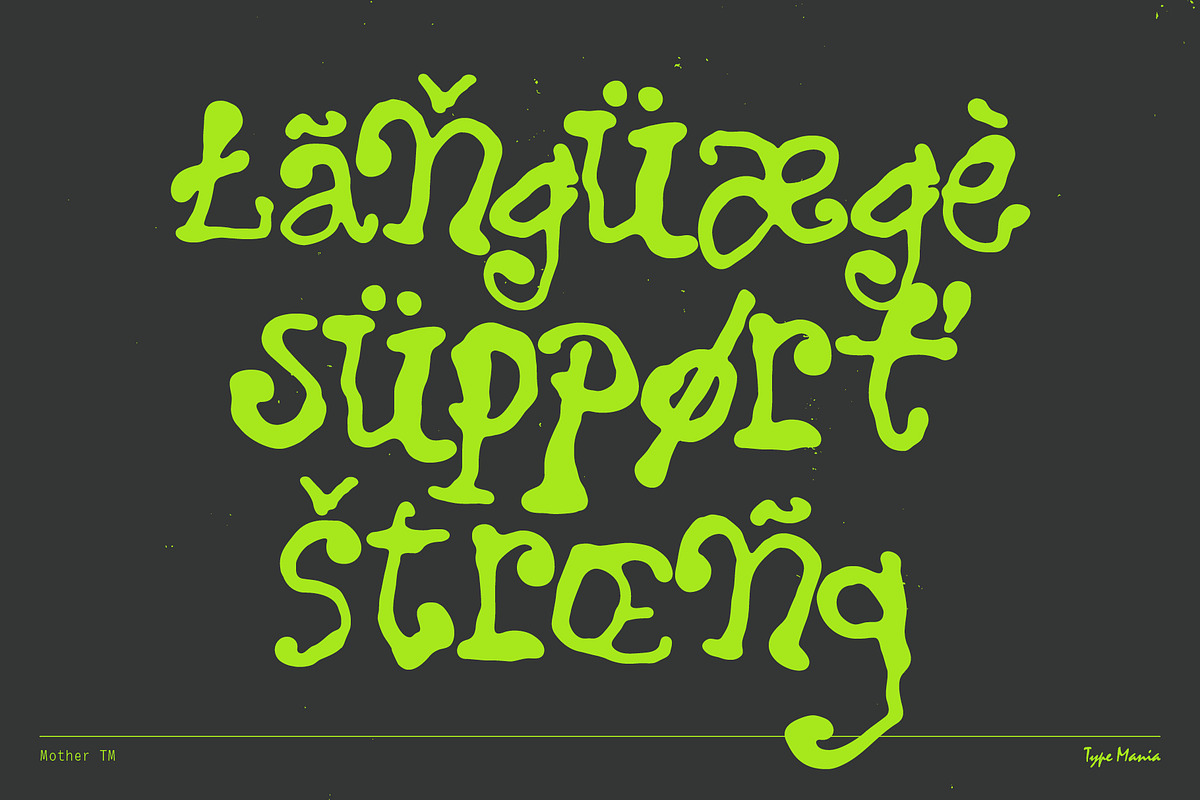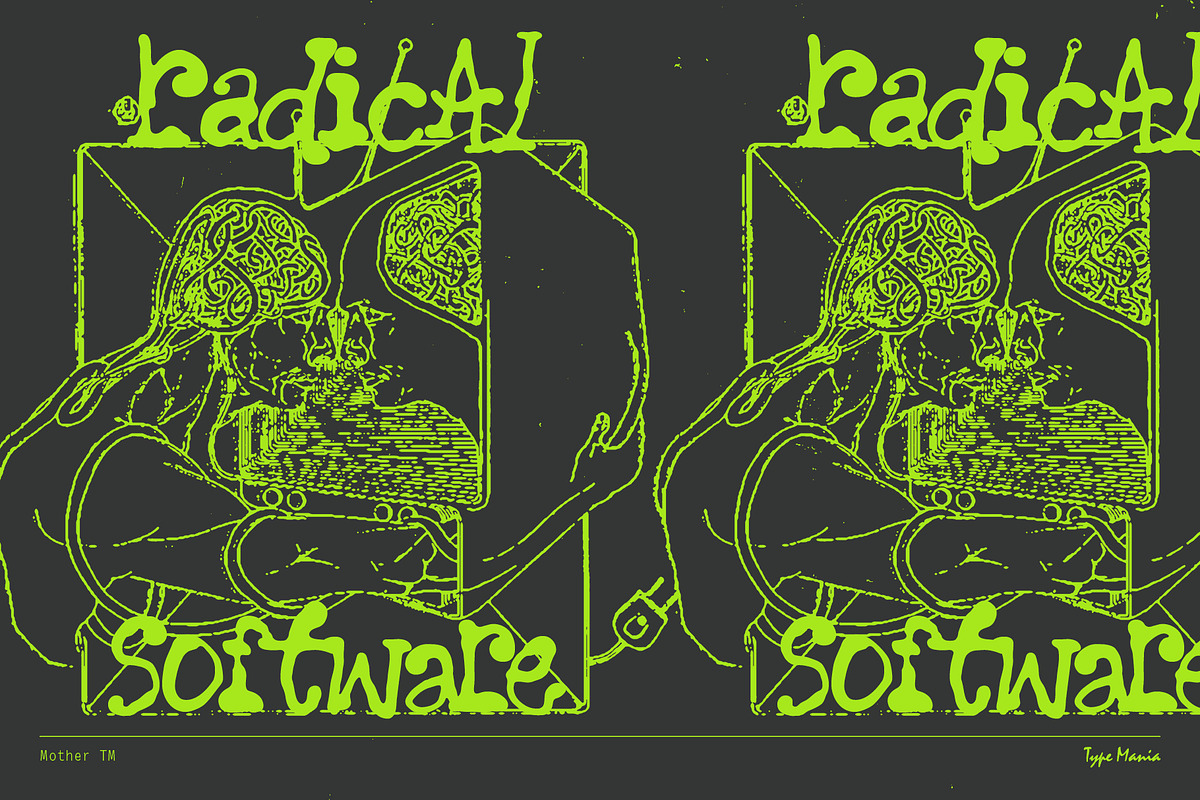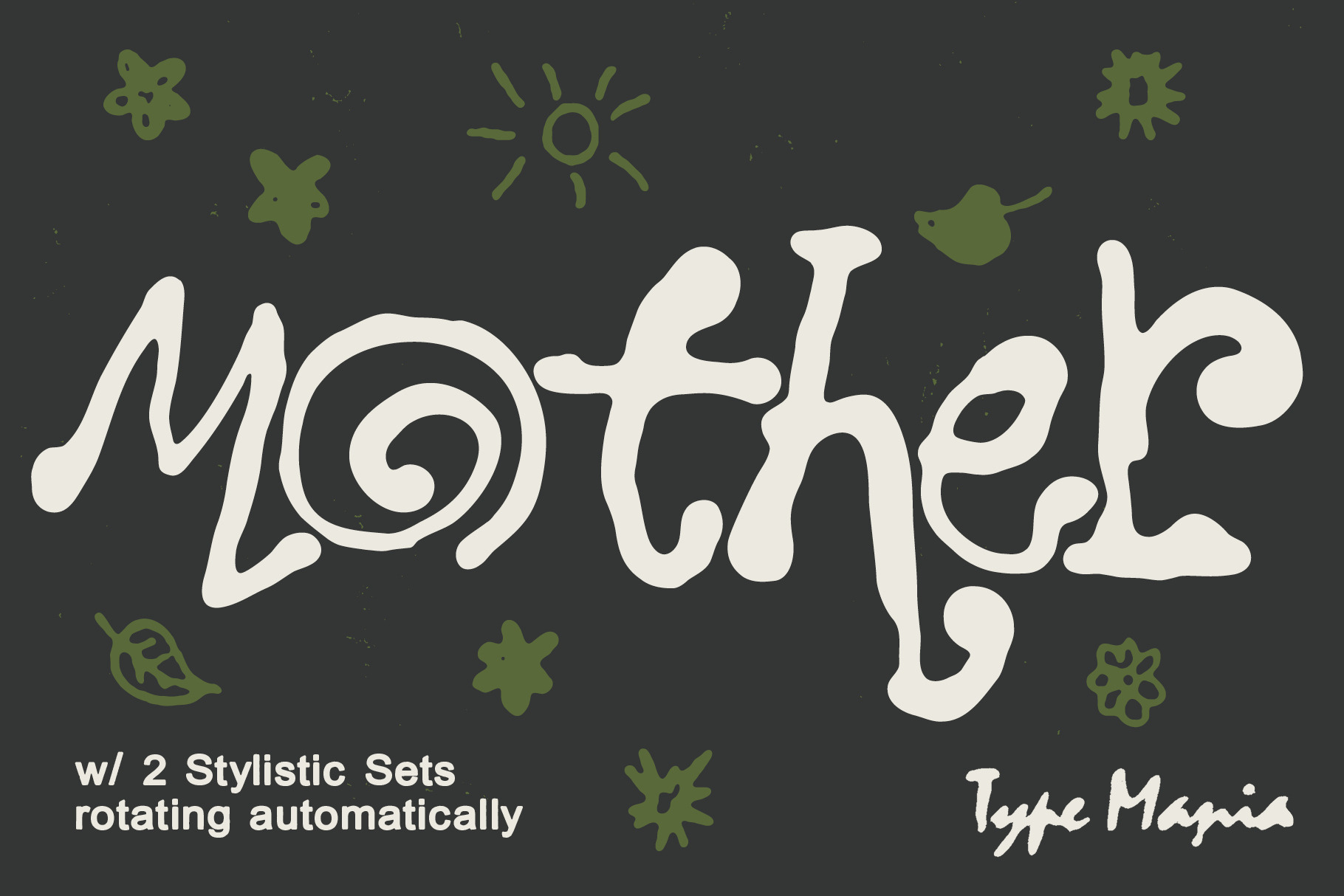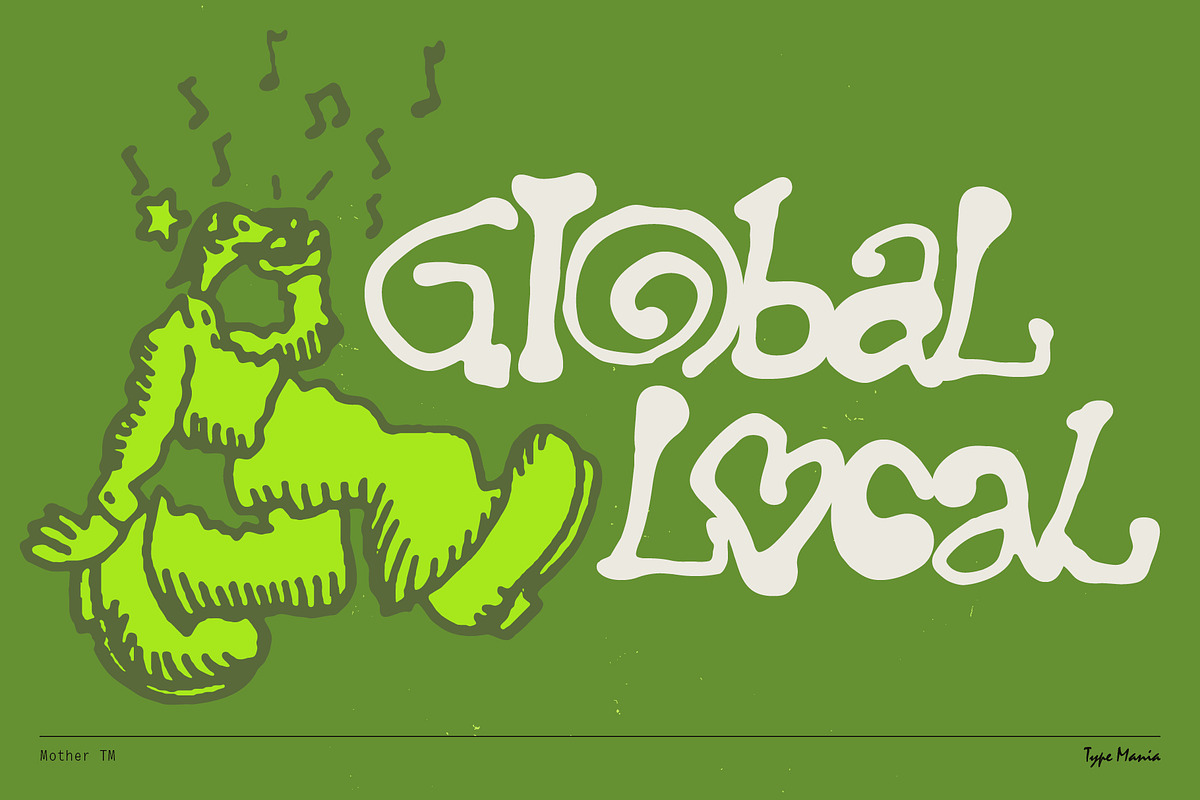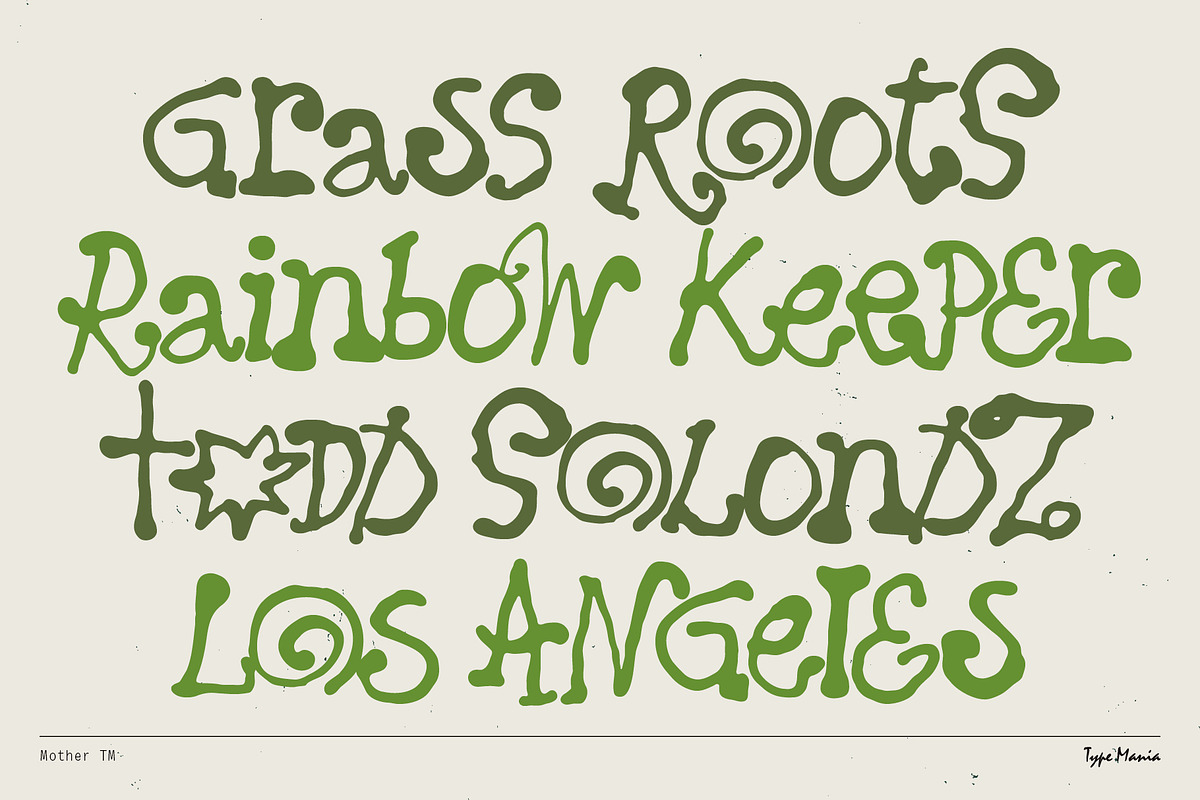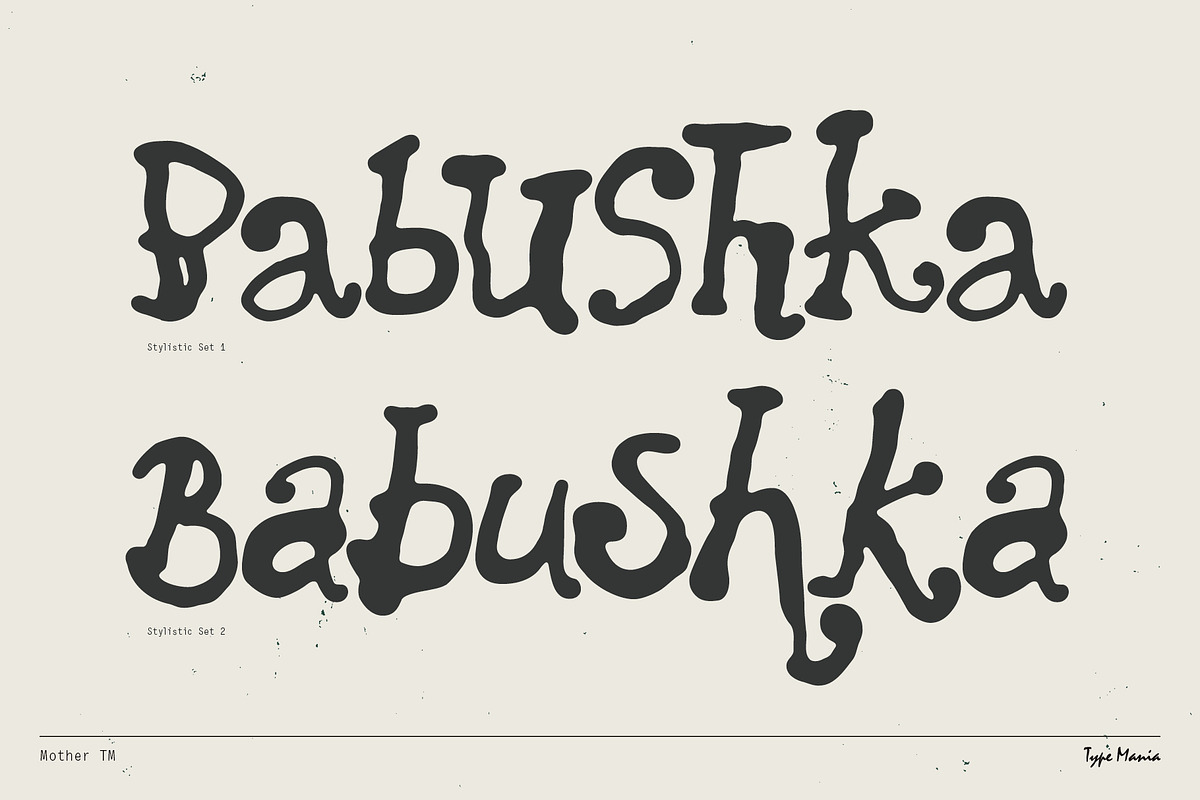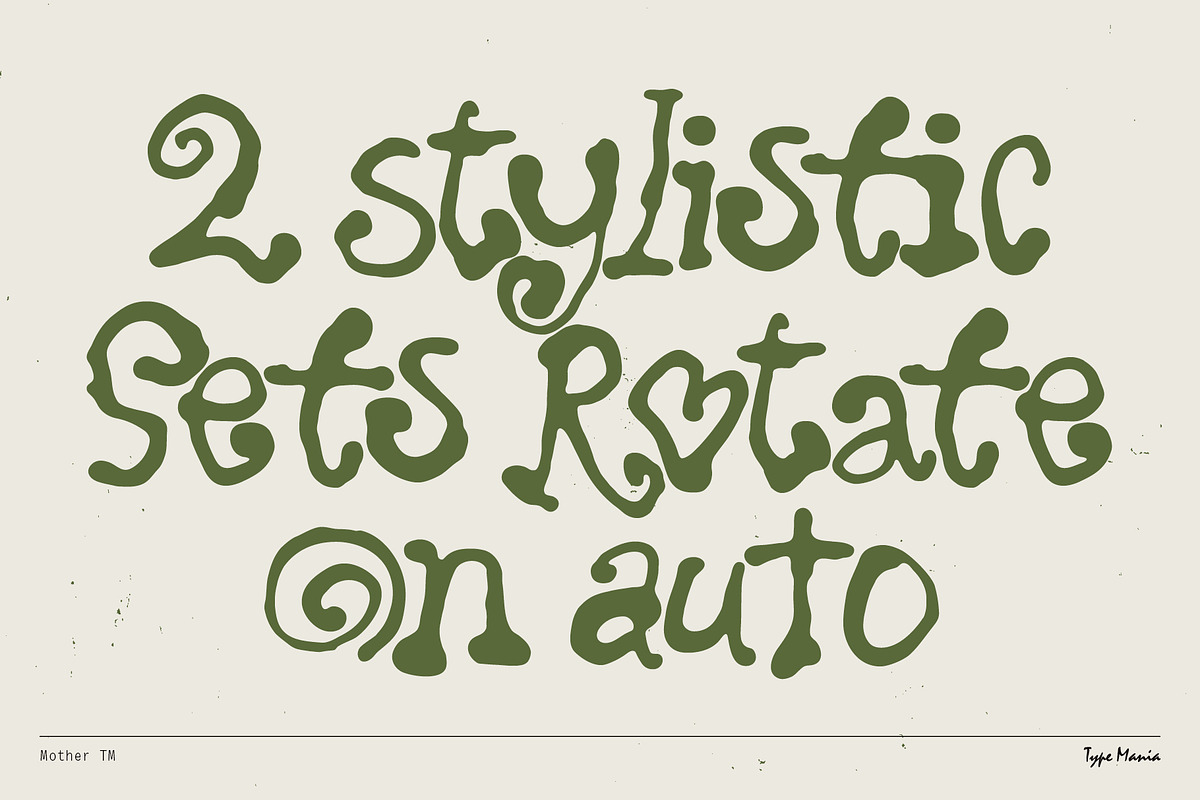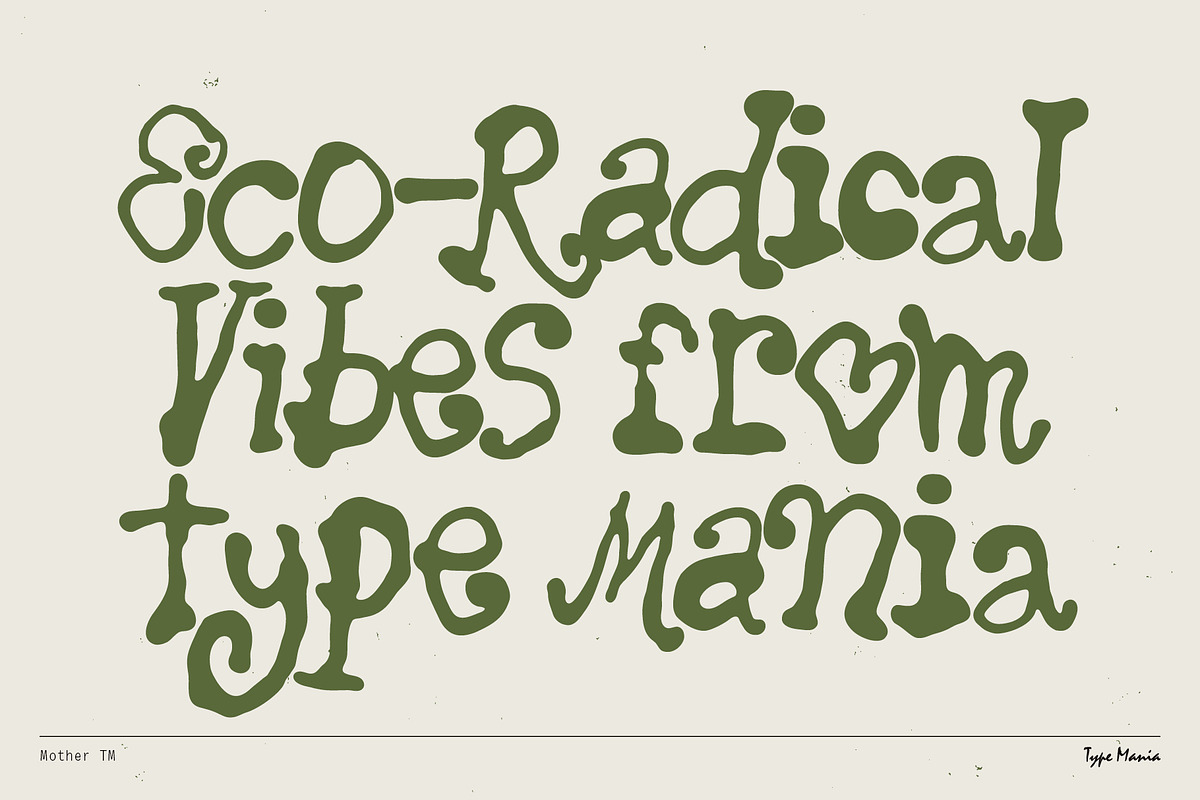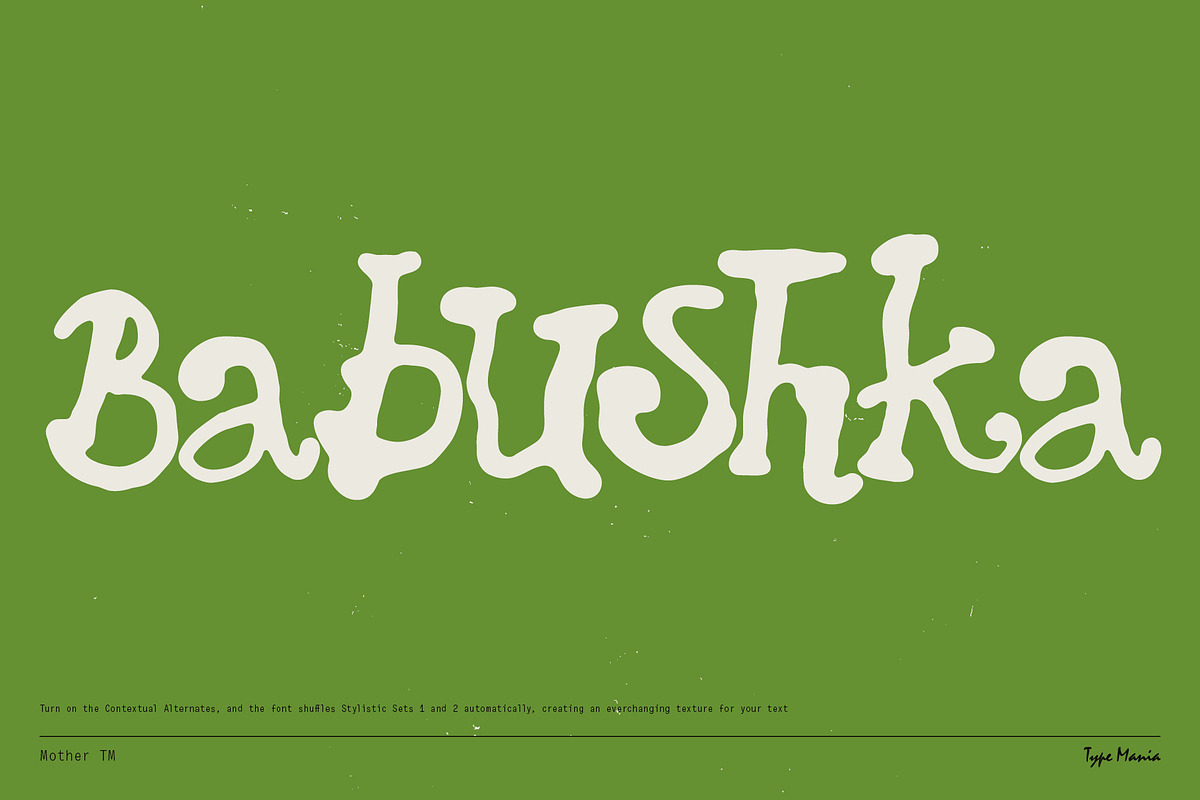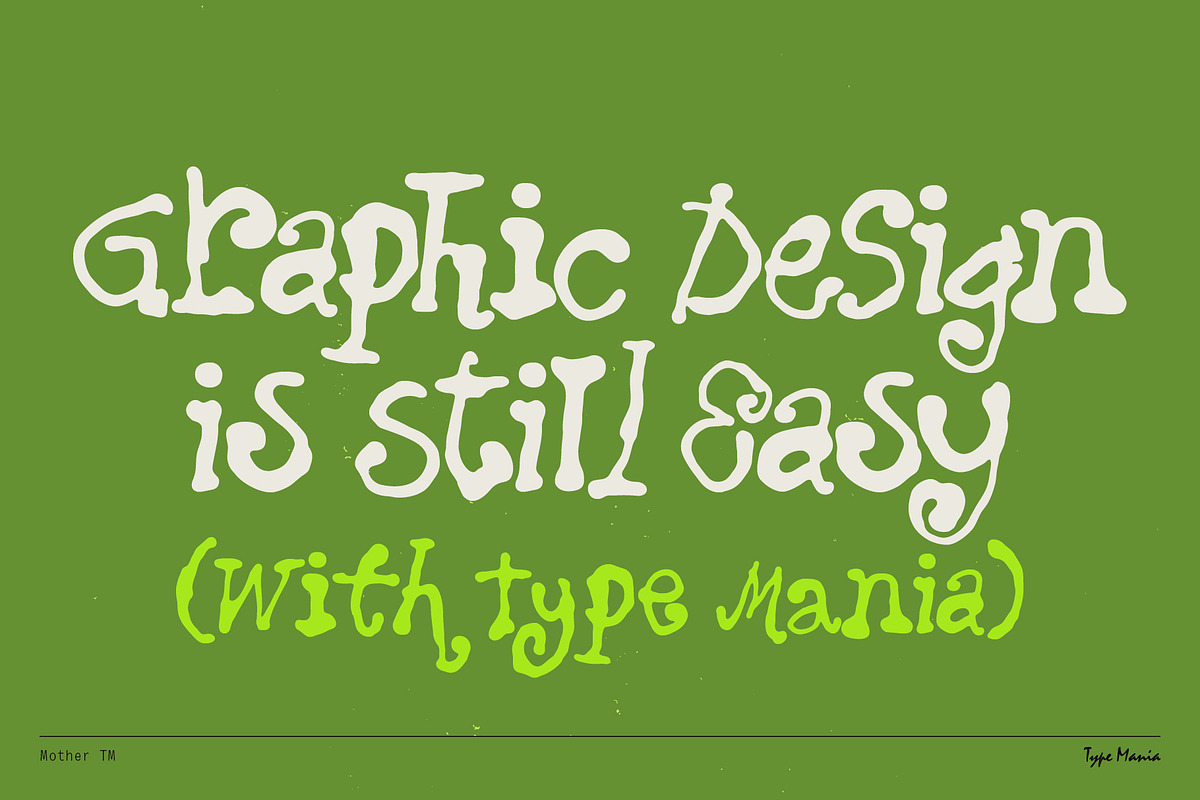
Mother TM – Hand-grown Dynamic Font
Mother TM, an organic display type with ink bleeds and hand-drawn character. Fire up the Contextual Alternates and the typeface rotates two distinct stylistic sets as u type. Stay rooted ☮︎
OpenType features
- 2 stylistic sets
- The font is programmed to automatically shift between the stylistic sets